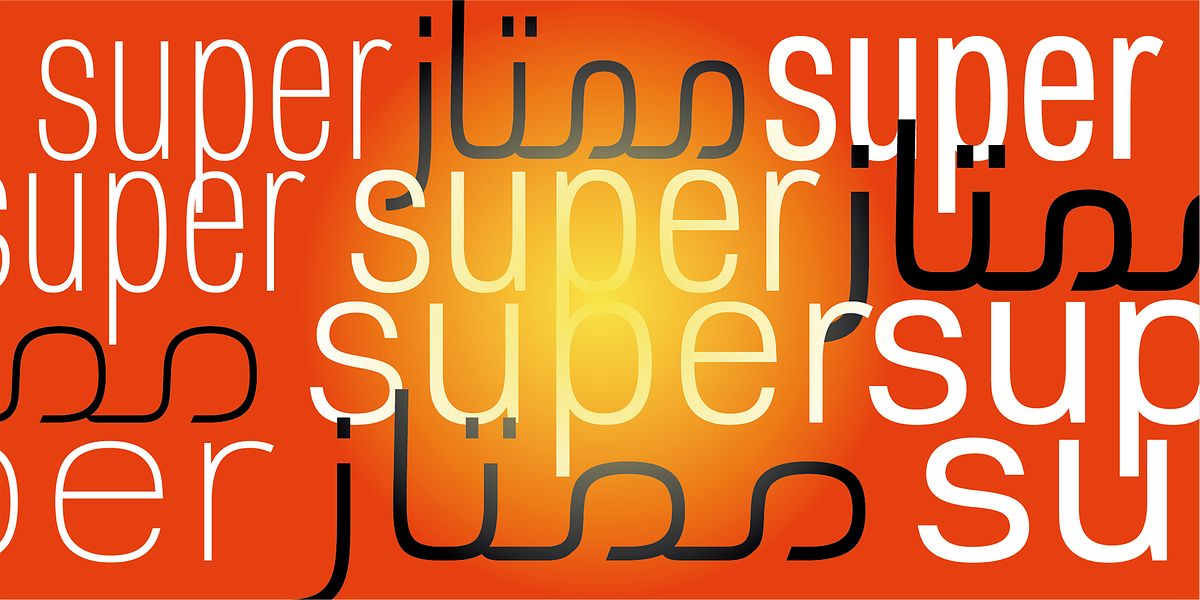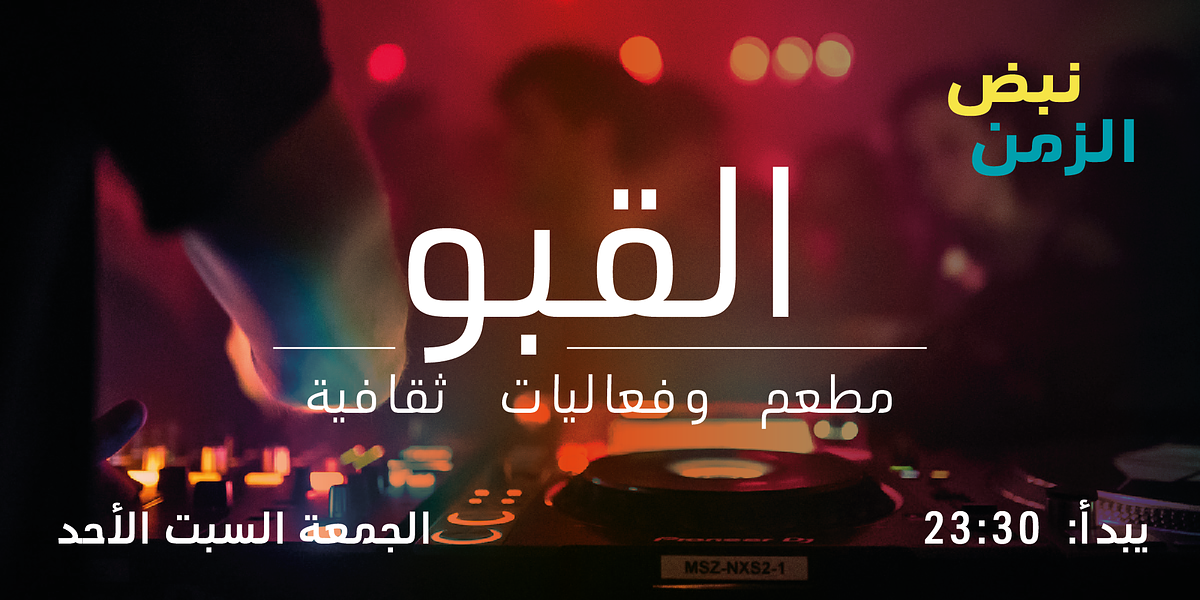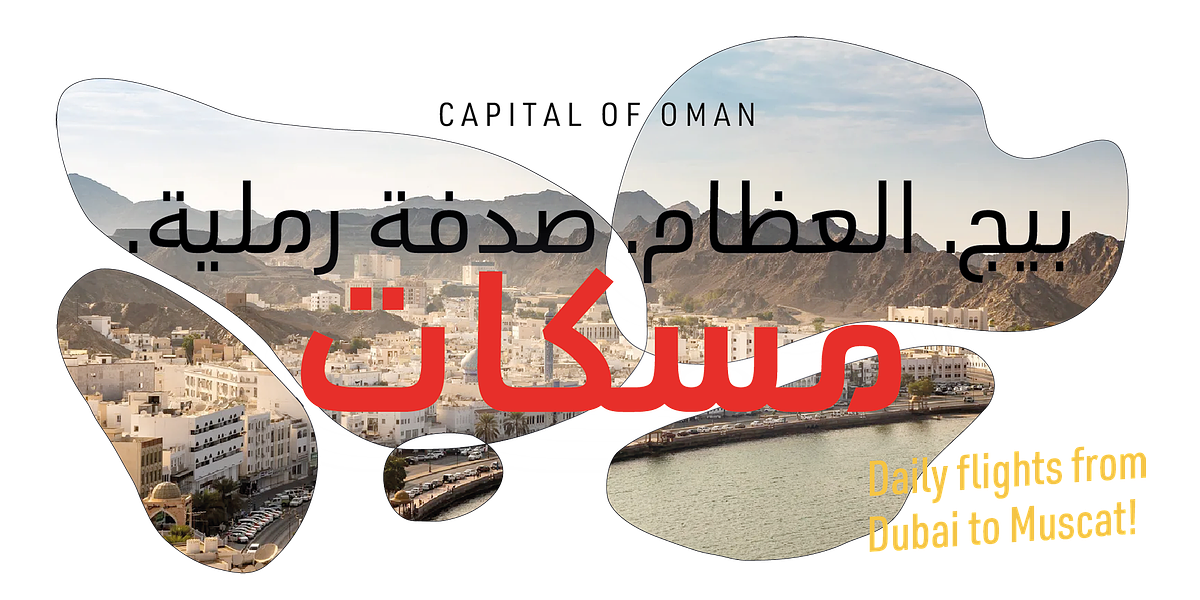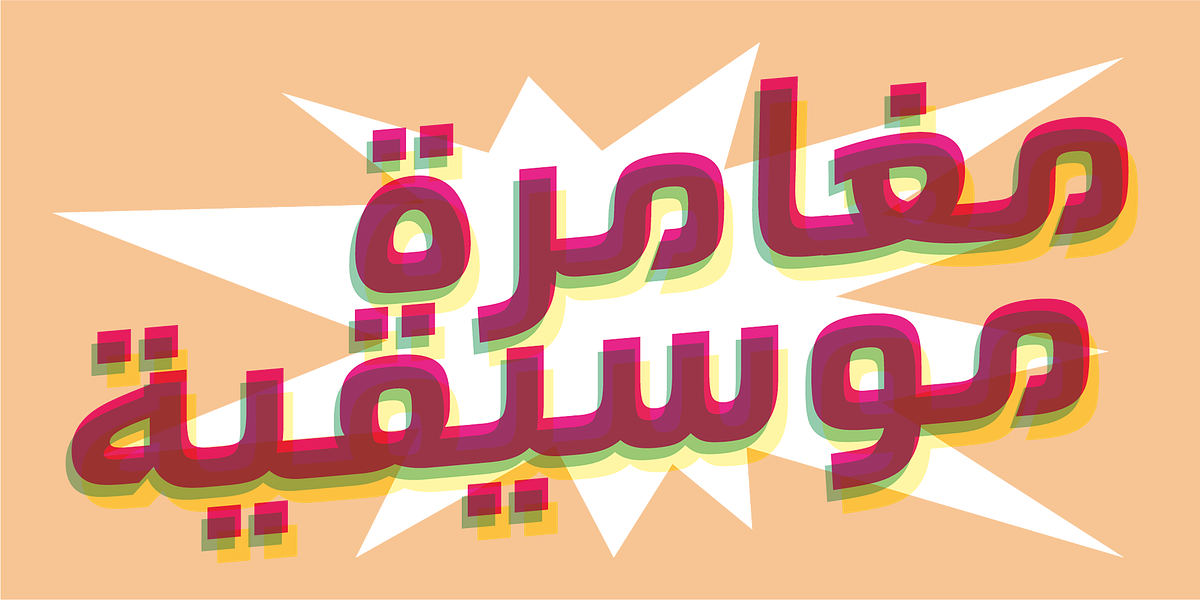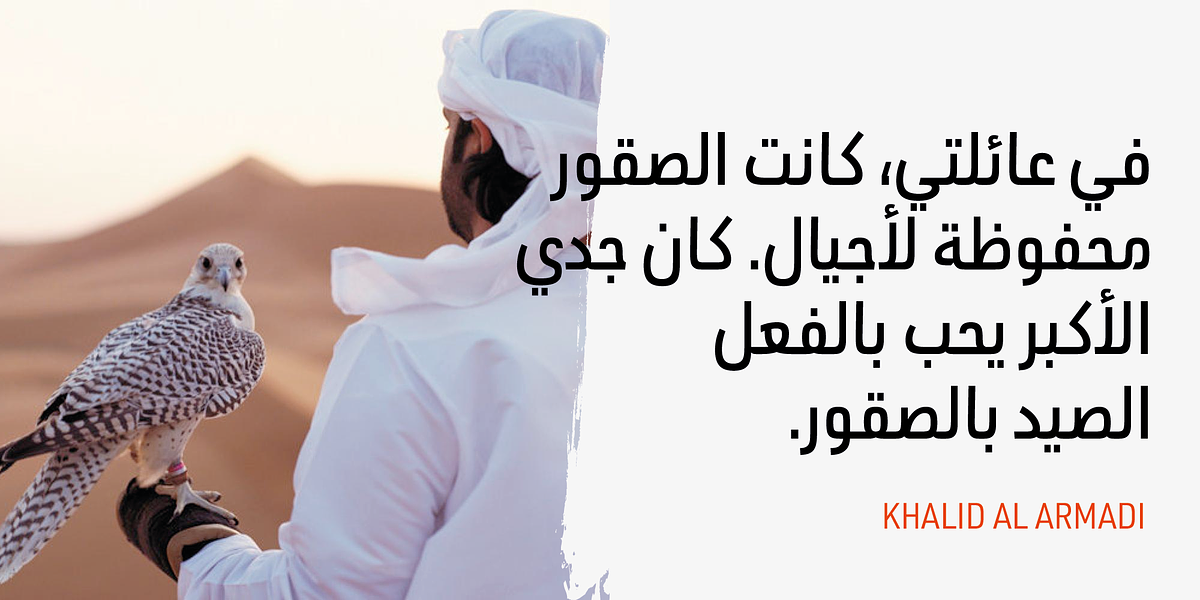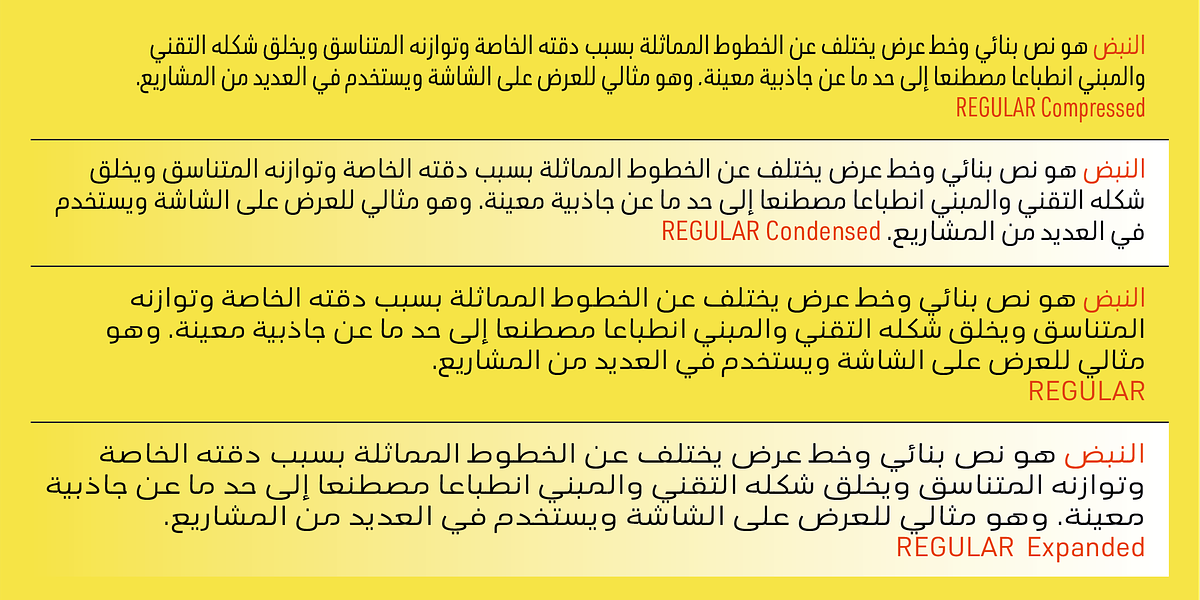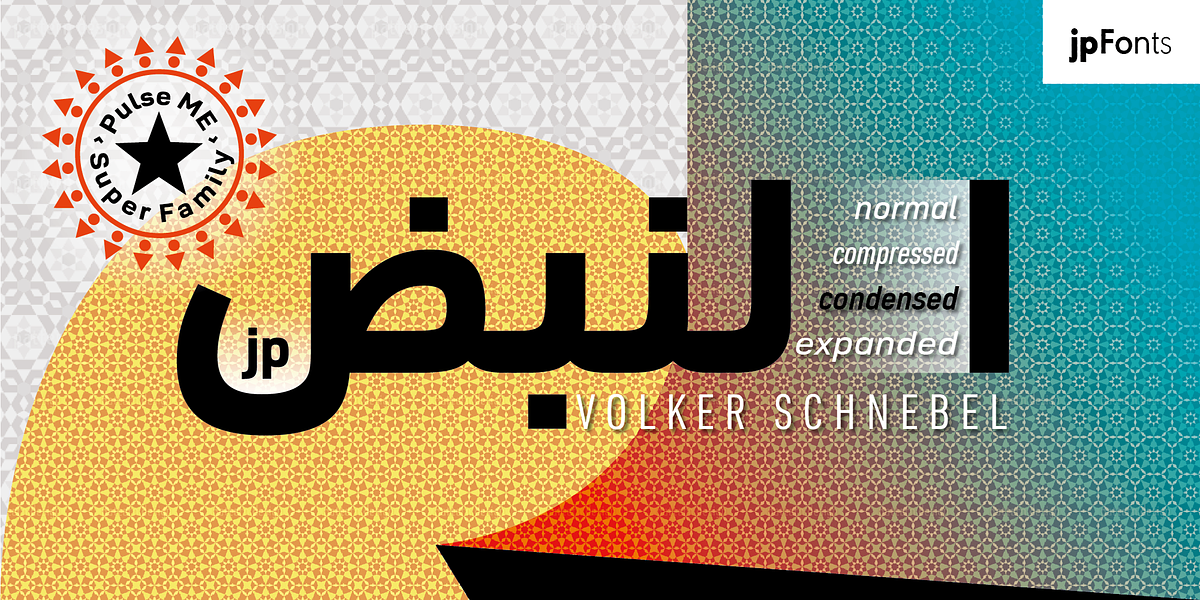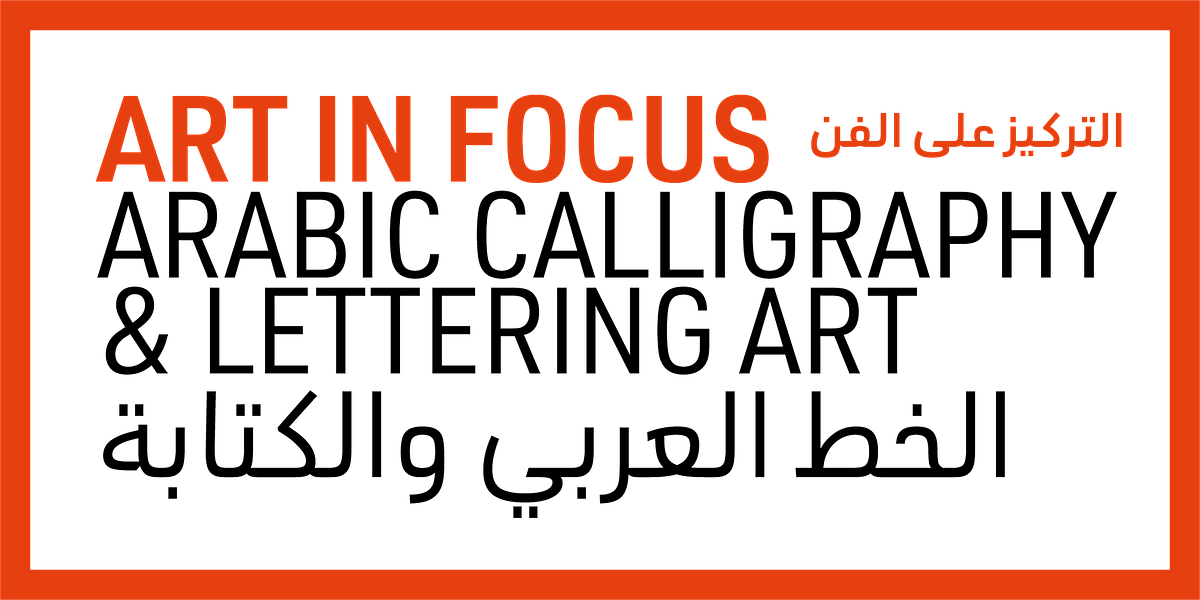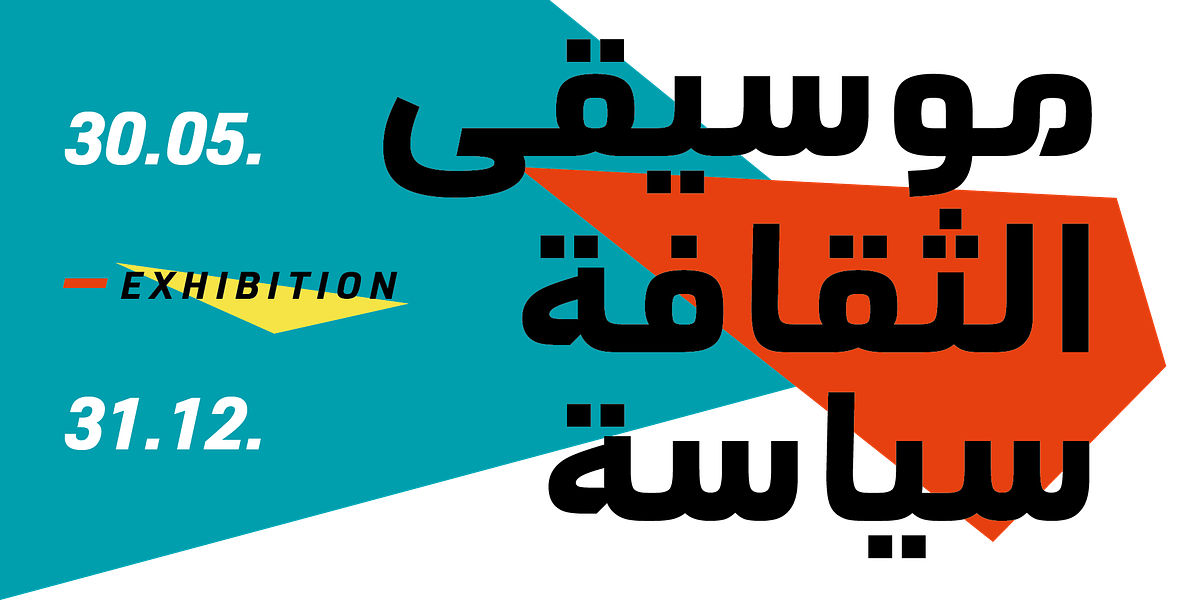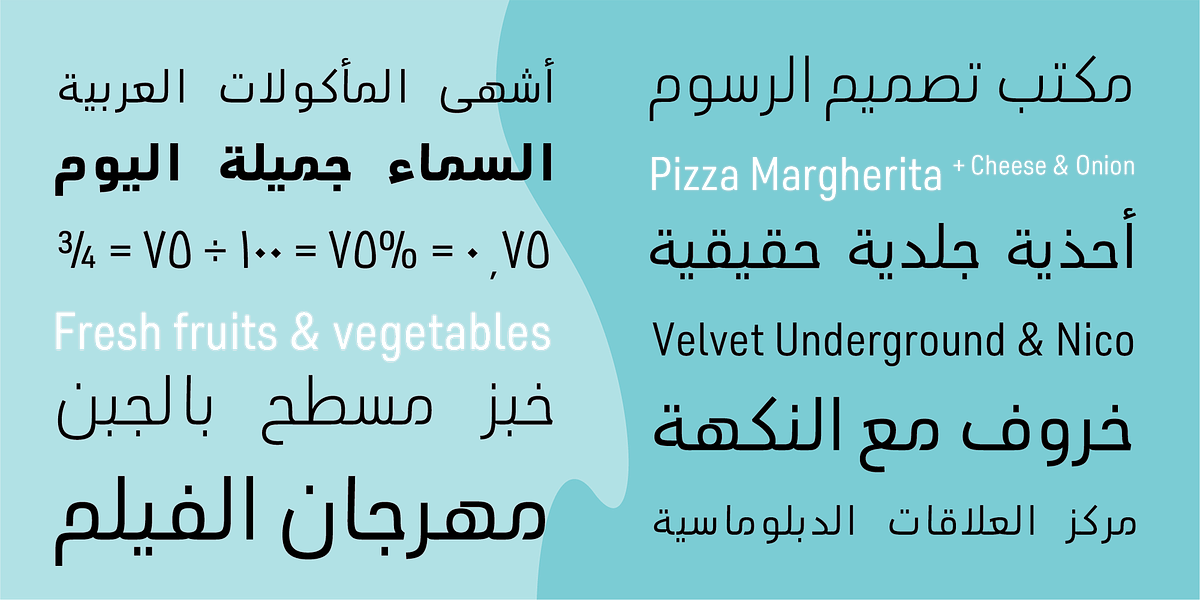
Pulse JP ME Condensed
Pulse JP ME is a neo-grotesque sans serif font family characterized by its sharpness and balanced design. It offers a wide range of weights and widths, making it suitable for both display and body text applications. The font was designed with a constructivist approach, resulting in a clean and modern aesthetic. Notably, Pulse JP ME includes support for a comprehensive character set encompassing Latin, Arabic, and Hebrew languages.